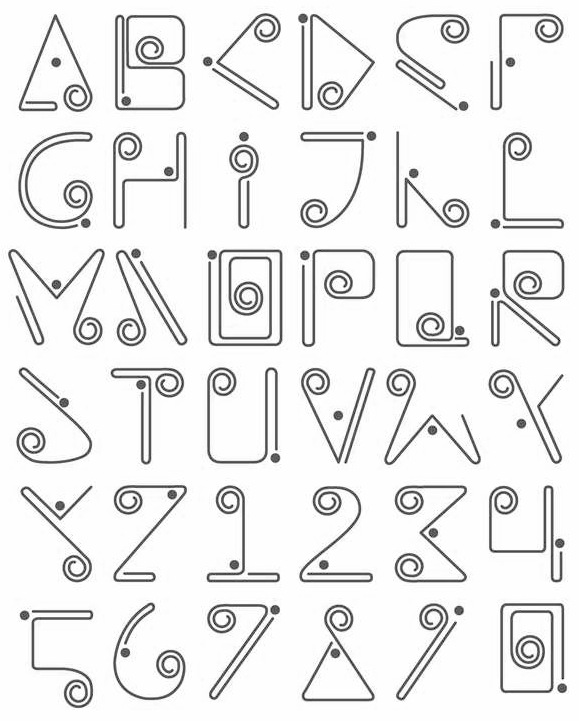
Colombian type design | ||
Medellin, Colombia-based designer of a decorative caps alphabet in 2016 that was showcased at a defunct Behance link. [Google] [More] ⦿ | |
Medellin, Colombia-based designer of Mani (2018, prismatic caps) and Niyo (2018, a hyper-decorative typeface). [Google] [More] ⦿ | |
Art design student in Bogota, Colombia. He created the handsome tall condensed hand-drawn poster typeface Hello in 2012. [Google] [More] ⦿ | |
Bogota, Colombia-based designer of the experimental typeface Circonica (2017). [Google] [More] ⦿ | |
Bogota, Colombia-based designer of the curly Wayuu culture-inspired typeface Jerulaa (2016). [Google] [More] ⦿ | |
Bogota, Colombia-based designer of Fragmenta (2014, sans typeface). [Google] [More] ⦿ | |
Bogota, Colombia-based creator of Montaga (2012), a free font published at Google Web Fonts. Montaga is a roman font in the Trajan style, with a lower case added. In 2014, she designed the grid-and-circle-based typeface Risk. Old Behance link. [Google] [More] ⦿ | |
Graphic designer in Bogota, Columbia, who created Minoria (2012, hexagonal). Behance link. [Google] [More] ⦿ | |
During his studies in Medellin, Colombia, Alejandro Hoyos created the typeface Brush Type (2014). [Google] [More] ⦿ | |
Born in Cali, and a resident of Bogota, graphic designer Alejandro Monsalve created a squarish 3d display face in 2012. In 2014, he added the straight-edged sci-fi typeface Future Punk. [Google] [More] ⦿ | |
Medellin, Colombia-based designer of a multiline typeface in 2012. In 2013, he added a paper-fold typeface. [Google] [More] ⦿ | |
Illustrator and graphic designer in Colombia. Behance link. He created these typefaces in 2012: Geometria Insolente, Nadaland, Apt. [Google] [More] ⦿ | |
Graphic designer and illustrator in El Cerrito, Colombia. Creator of Broken Circle Font (2014) and 7 Days Font (2014). The latter font was a class project created for the movie poster 7 Days in Havana. [Google] [More] ⦿ | |
Bogota, Colombia-based designer of the pointillist typeface BS Point Ink (2018). [Google] [More] ⦿ | |
Bogota, Colombia-based designer of the art deco typeface family Bat Murcielago (2015), which is claimed to be free, but no download link is provided. [Google] [More] ⦿ | |
Type and graphic design company in Bogota, Colombia. Creators of the modular and rounded angular typeface Bagata (2010). [Google] [More] ⦿ | |
Colombian designer of the free Sao Paulo-style graffiti font Muro SP (2020). [Google] [More] ⦿ | |
Medellin, Colombia-based designer of the squarish typeface Innerium (2015). [Google] [More] ⦿ | |
Bogota, Colombia-based designer of the uppercase art deco typeface QBIL (2017). [Google] [More] ⦿ | |
Bogota, Colombia-based designer of Bloco (2014). [Google] [More] ⦿ | |
Andinistas
Among their typefaces: Nikona, Magola (2008, puffy script), Angelita, Pepelepu, Zerotipo, Skuke, Retro, Radio Bemba, Pumarosa, Pr1, Oficia, Nativa, Mongol (free), Lirrot, Leroy (1999-2008, computer screen stripes), Leroy Dingbats (1998-2008), Hiroformica, Hibrida, Guerilla Outline, Gruada, Gancho Petare, Escuedra, Esbelta, DSNett, dia-D, Download, Denego, Cristal, Codiga, Codiga Icon, Codiga Destroy, Codiga Codec, Chacao Petare, Cazon Gothic, Boa, Biol, Ave-cedario, Anaira. Cazon (2007, Camargo Guerrero) is a family of calligraphic origin consisting of 7 styles: Gris, Negra, Uno, Dos, Tres, Dingbats A and B and is based on the paintbrush letters found in the popular markets of La Guaira, Caracas. This family won an award in the experimental typeface category at Tipos Latinos 2008. Lirrot (2007) is a 6-style grunge handwriting typeface bordering on the psychotic, and comes with Lirrot Dingbats. It too won an award at Tipos Latinos 2008. PP Lepu (1998-2008) is pixel grunge. Josefina (+Dingbats1) is a curly script also made in 2008. Navaja (2008) and Diad are collections of grunge fonts with grungy dingbats. Lucrecia 1 through 3 (2008) is a fat connected script family ranging from clean to splattered. Telesforo (2008) radiates anger from its brushy grungy limbs. Telesforo Black won an award at Tiupos Latinos 2012. Ninja 1 and Ninja 2 (2008) are script fonts, and are accompanied by Ninja Dingbats (2008). Dsnet (2008) is a 6-style bare-bones rounded squarish family. Flaminia and Flaminia Dingbats (2008) are useful for food-related signage. Modelia (2008) is thick, informal, and looks like it was brushdrawn. Modelia won an award at Tipos Latinos 2010. Filomena (2008) is a brush family with a goth theme and an accompanying goth dingbats. Obdulia (2008) and Floro (2008) are extreme mural grunge fonts. Marimonda (2009) is grunge calligraphy. Typefaces from 2012: Demetria (a hellish script), Ciclope (army stencil), Meteora (a sturdy weathered family), Kamuy (a grunge typeface, with dingbats, that links to Asian comic style lettering, and Japan in the Pacific War), Naturalia (an informal sans family). In 2013, he made Gluten (a poster typeface family), Bengala Script (a distant relative of Mistral), Chef Script (a large signage script influenced by Ross F. George's Speedball lettering manual (1957)), Chef Script Dingbats (hilarious restaurant dings and fists), Sumergible Script. Typefaces from 2014: Citronela (cartoon or Caribbean hotel signage font family), Bemol (a set of script fonts in craftsman style), Nemocon (creamy script), Acustica (a calligraphic Acustica Script, with didone Acustica Caps, and a decorative Acustica Dingbats), Cereal (+ Script (a vampire script), Skin and Dingbats). Typefaces from 2015: Draw (which includes a gorgeous calligraphic Draw Script), Coffee Break (signage script family, +dingbats), Solar (a set of seven handcrafted styles). Typefaces from 2016: Enjoy (Script, Caps). Typefaces from 2017: Warhol (irregular scripts), Makeup (a crayon font by Carlos Guerrero and Carolina Suarez). Typefaces from 2018: Bechamel (a delicious curly brush script), Bechamel Roman (based on the unicase letterings of the movie Willy Wonka and the chocolate factory), Stevia (script). Typefaces from 2019: Bleak (an experimental layerable font inspired by wood type, Piet Zwart, Lissitzky and van Doesburg), Nutcake CatchWords. Sonora won an award at Tipos Latinos 2014. Combine Script and Combine Caps (layerable colorable fonts), and Nemocon, won awards at Tipos Latinos 2016. Winner at Tipos Latinos 2018 for Clothing, a titling typeface published at Andinistas by Camilo Zamora and Carlos Fabian Camargo. Typefaces from 2020: Cherrypie (a food packaging script), Rapsodia (a decorative all-caps family with curl, spurs, Victorian details, and decadent frills). Typefaces from 2021: Visible (an inky script family), Caribe (Script, Caps, Shields). View the typefaces designed by Andinistas. Klingspor link. Dafont link. Behance link. [Google] [MyFonts] [More] ⦿ |
Cali, Colombia-based designer of the handcrafted Abecedario Ilustrado (2017). [Google] [More] ⦿ | |
Colombian graphic and type designer, b. Cali, 1976. He has an undergraduate degree from Instituto Departamental de Bellas Artes in Cali (1996-2001), and Masters degrees in corporate identity (from ELISAVA in Barcelona, 2006-2007) and in type design (from IED in Madrid, 2012). In 2012, he created the sans typeface Nerea (Comando Cran). This typeface was a school project at IED in Madrid. [Google] [More] ⦿ | |
Bogota, Colombia-based designer of an untitled ribbon typeface in 2013. [Google] [More] ⦿ | |
Ibagué (Bogota), Colombia-based creator of the graffiti font Andone (2012) and the school project font Genesis (2014). Behance link. [Google] [More] ⦿ | |
Cali, Colombia-based creator of the partly dotted typeface Contin (2014). Behance link. [Google] [More] ⦿ | |
Designer in Cali, Colombia, of the experimental typeface Tipos Antiguos (2013) that was inspired by pre-Colombian art. [Google] [More] ⦿ | |
Andres Moreno Walter
Andres Ramirez
Pasto, Colombia-based student-designer (at Universidad de Nariño) of the straight and sharp-edged shadow typeface Levedge AS (2017). [Google] [More] ⦿ | |
Bogota, Colombia-based designer of Origami Font (2014). [Google] [More] ⦿ | |
Graphic designer in Bogota, Colombia, who published the free AI-format rounded sans all caps typeface Alvania in 2017. [Google] [More] ⦿ | |
(Colombian?) creator of Esteban (2012, Google Web Fonts). She explains this text typeface as follows: One of the most important features of Esteban is its stroke, that loses or gains weight in the stems. This feature was defined from the manuscripts of Jorge Alfredo Díaz Esteban, a writer who used a tool that can generate modulated strokes. This means the stroke width varies due to the pressure of the pen on the paper, and this quality allows the font to have a presence on the page that makes texts more dynamic. Ruluko (2012, Google Web Fonts) is a free typeface created by Ana Sanfelippo, A. Díaz and M. Hernández. Google: Ruluko is a typeface designed to aid those learning to read. The shapes you see are related to the handwriting typically used at schools in Argentina. The concept is that those who have learned to read this handwriting style may recognise this type style more easily than other typefaces often used in this context. But as a warm and stylish sans serif text type, you may use Ruluko for any purpose. Ruluko won an award in the text category at Tipos Latinos 2012. [Google] [More] ⦿ | |
Graphic designer in Medellin, Colombia, who created the decorative didone typeface Mandalario in 2015. [Google] [More] ⦿ | |
Colombian designer of Geometric Deco (2018). [Google] [More] ⦿ | |
During her studies, Bogota, Colombia-based Maria José Pardo designed the octagonal typeface Maquenjo (2019). [Google] [More] ⦿ | |
Maria Leion (Bogota, Colombia) created a grunge version of Clarendon vcalled Future City (2013). [Google] [More] ⦿ | |
Interactive media designer in Cali, Colombia, who created the free organic sans typeface Citrica (2017). [Google] [More] ⦿ | |